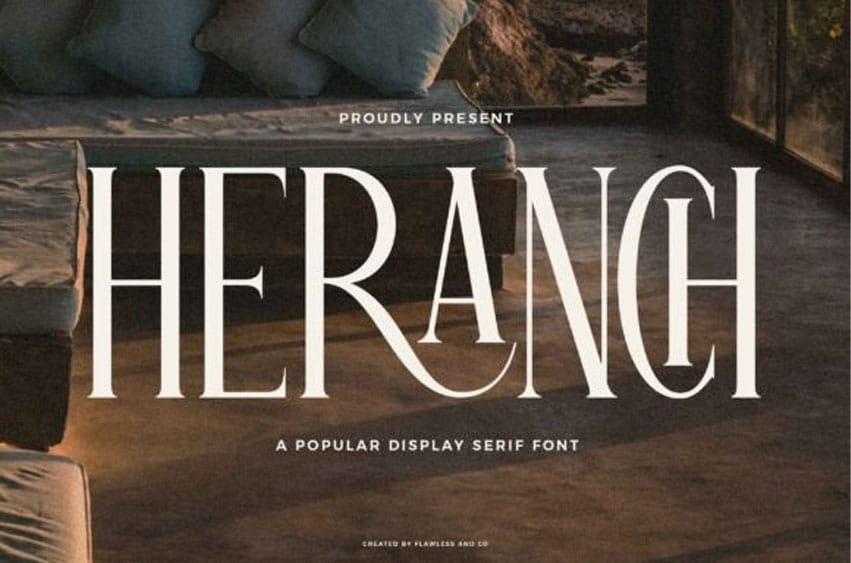
Heranch Font Stylish Display Serif Font. Heranch is a refined display serif font known for its graceful curves and elegant presence. Designed for visual impact without relying on heavy weight, Heranch offers a sophisticated balance of classic serif tradition and contemporary style. Perfect for editorial design, fashion branding, invitations, logos, and upscale packaging, it delivers timeless beauty with a modern twist.
The delicate serifs and high contrast details make Heranch a versatile choice for designers who value elegance and clarity.